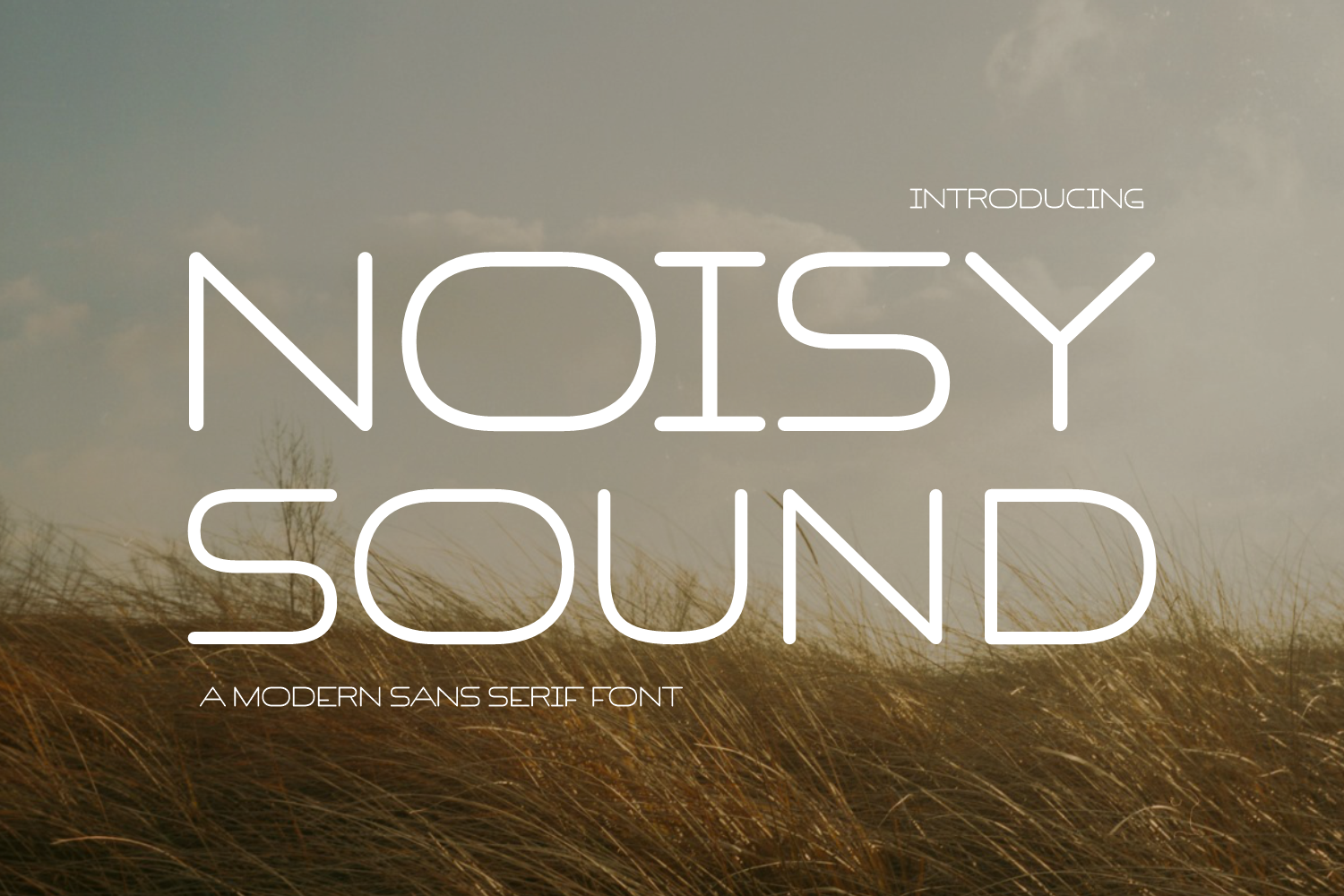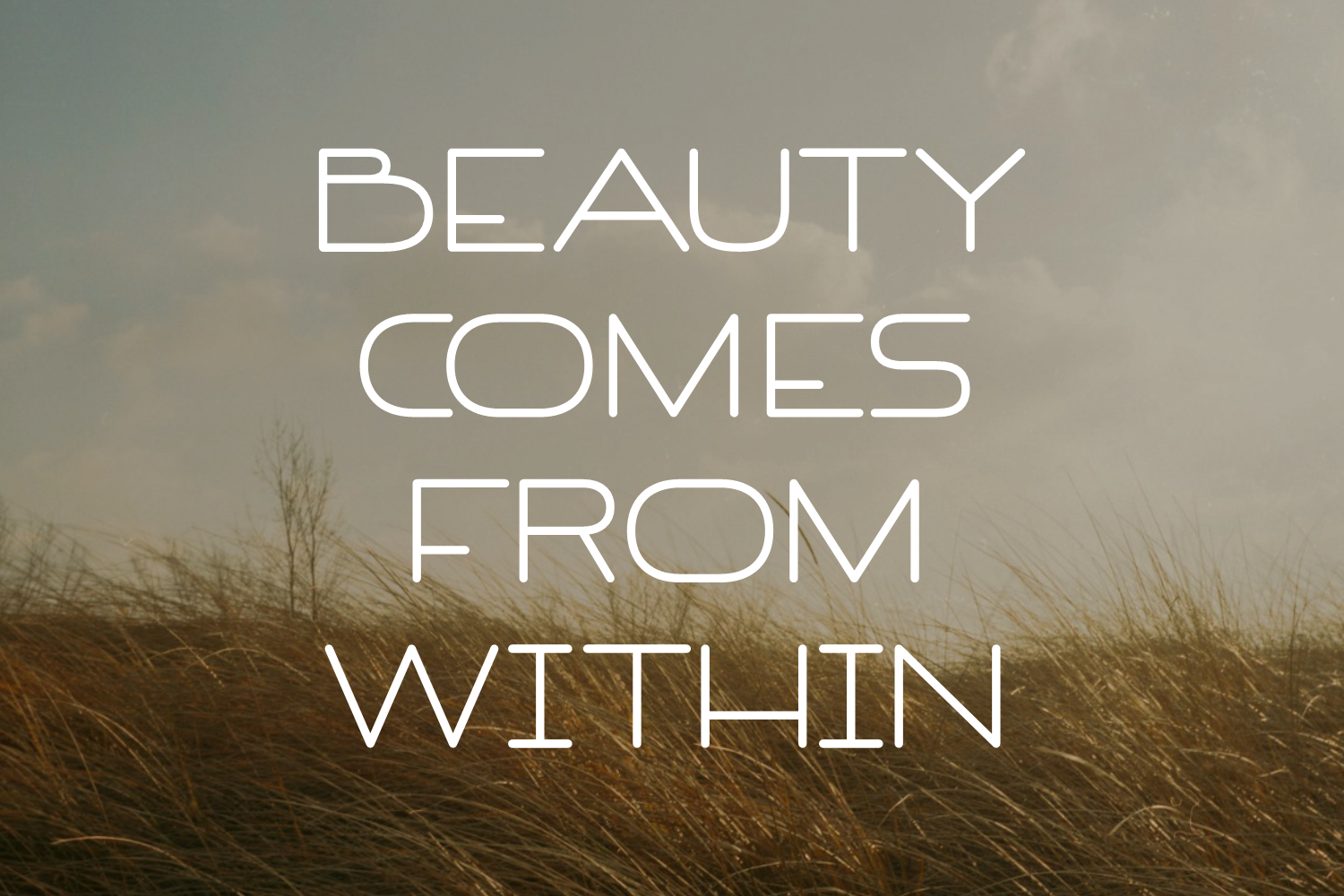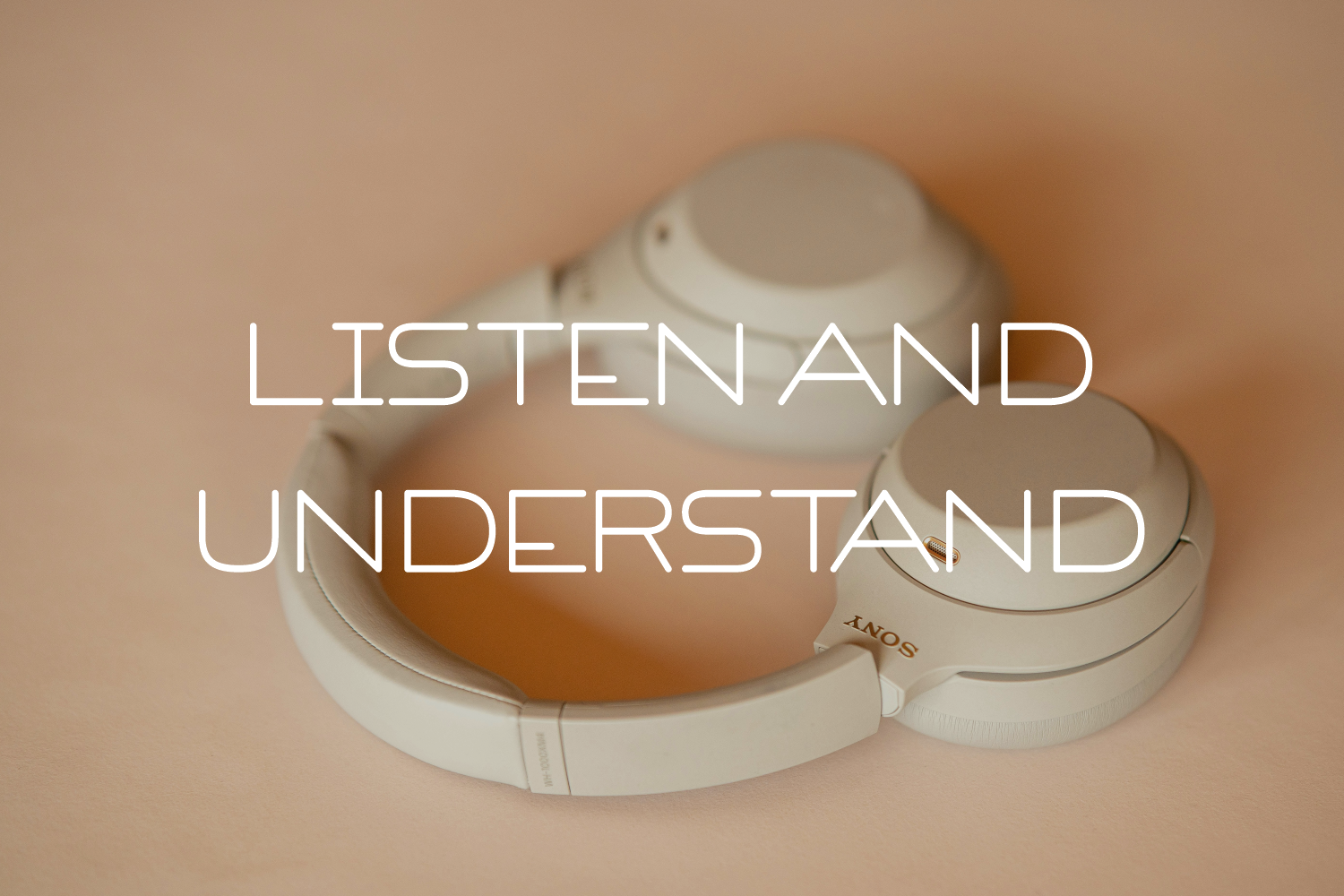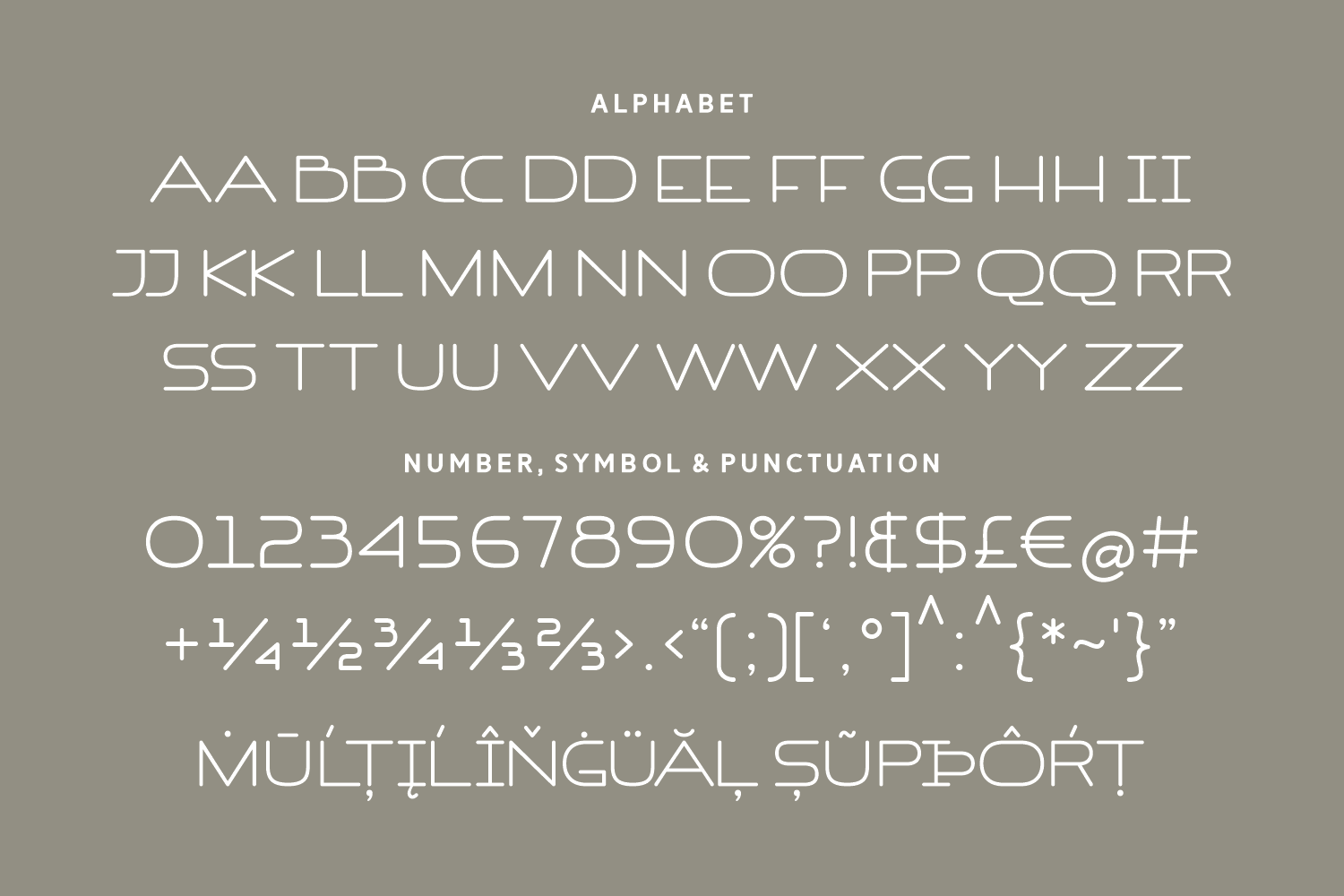
Noisy Sound is a futuristic sans-serif font that combines sleek geometry with a minimalistic, monospaced aesthetic. Designed with wide spacing and soft rounded corners, it creates a tech-inspired yet approachable tone perfect for modern branding.